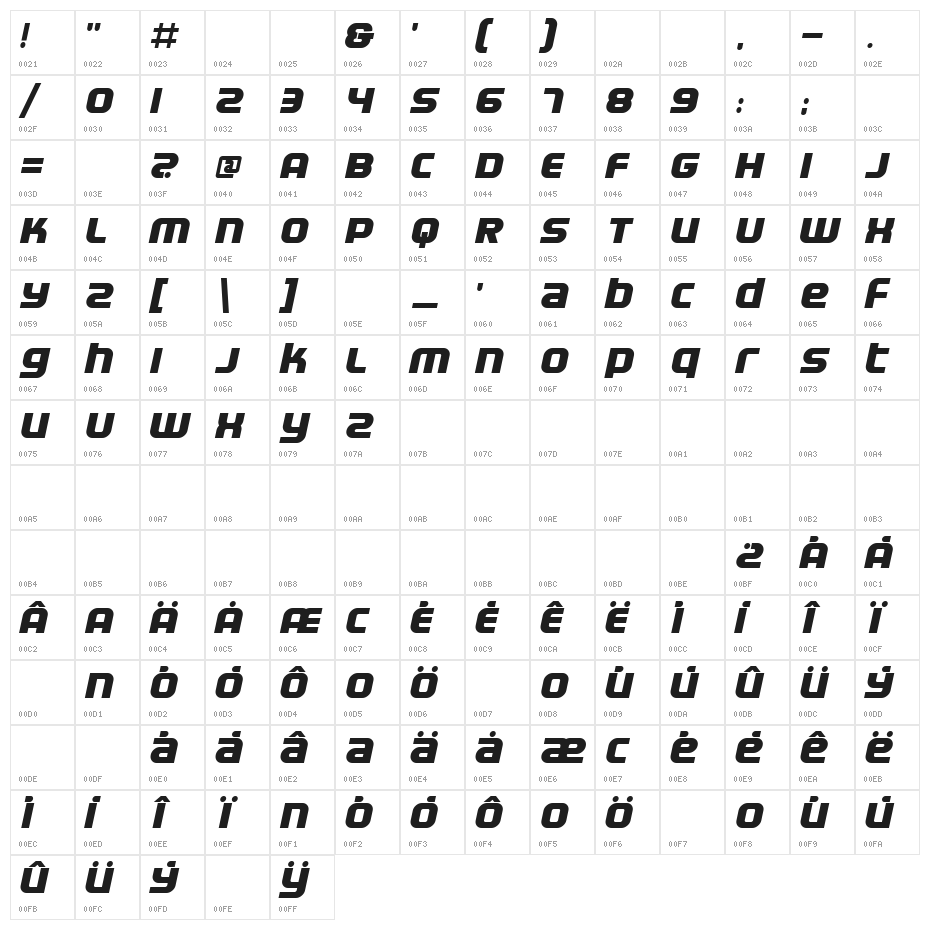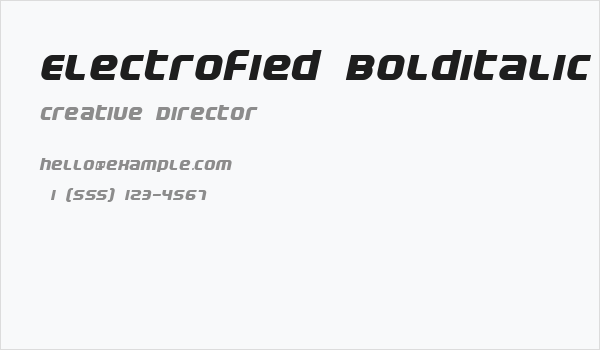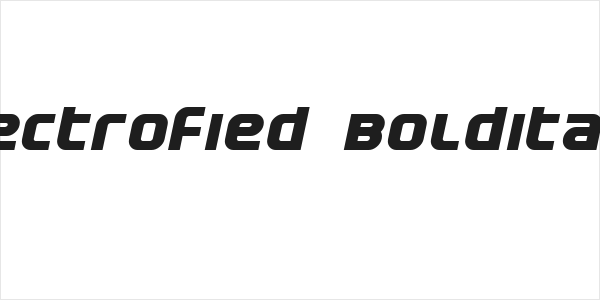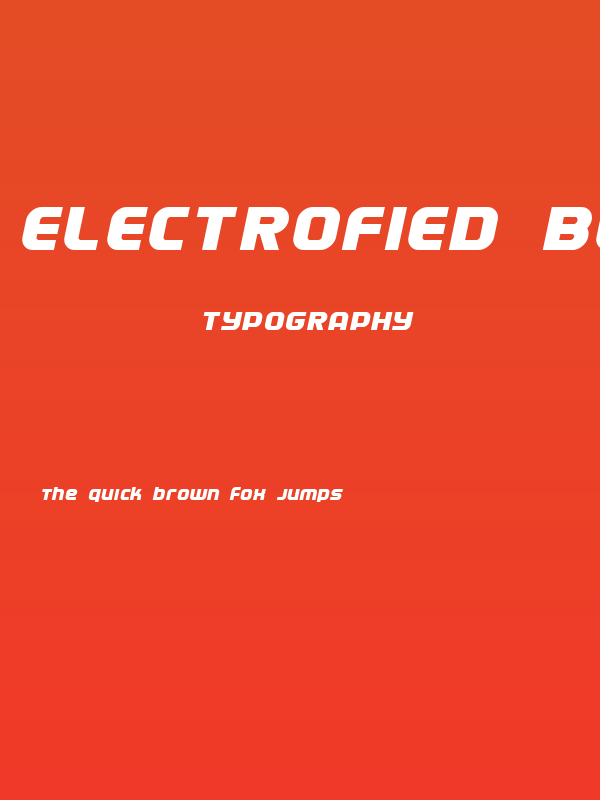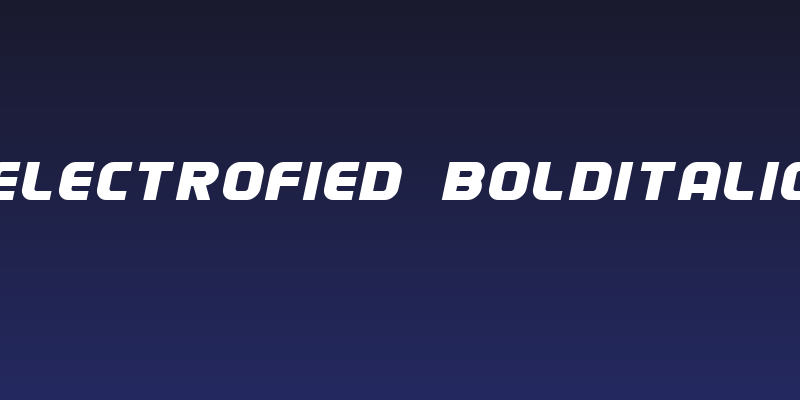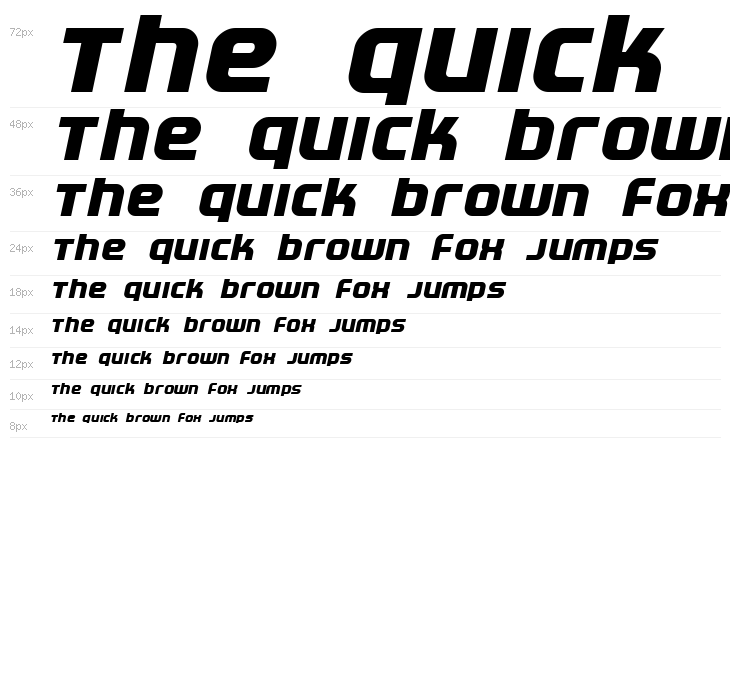
Electrofied BoldItalic Font
Electrofied BoldItalic Description
This font features a bold and italicized style with a futuristic and dynamic appearance. The characters are slightly slanted, giving a sense of motion and energy. The strokes are thick and consistent, providing a strong visual impact. The design is modern and sleek, with rounded edges that soften the overall look. The spacing between characters is tight, enhancing the compact and cohesive feel. This font is ideal for projects that require a contemporary and energetic vibe, such as technology branding, sports team logos, or dynamic advertising campaigns.
| Use Case | Logos, Headlines |
| Proposed Projects | Ideal for technology branding, sports logos, and dynamic advertising. |